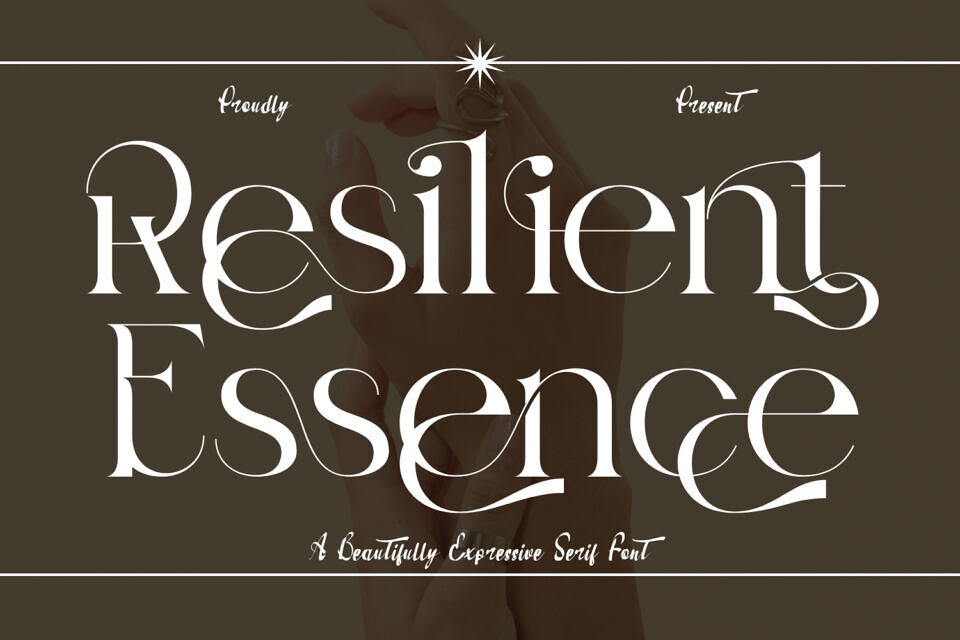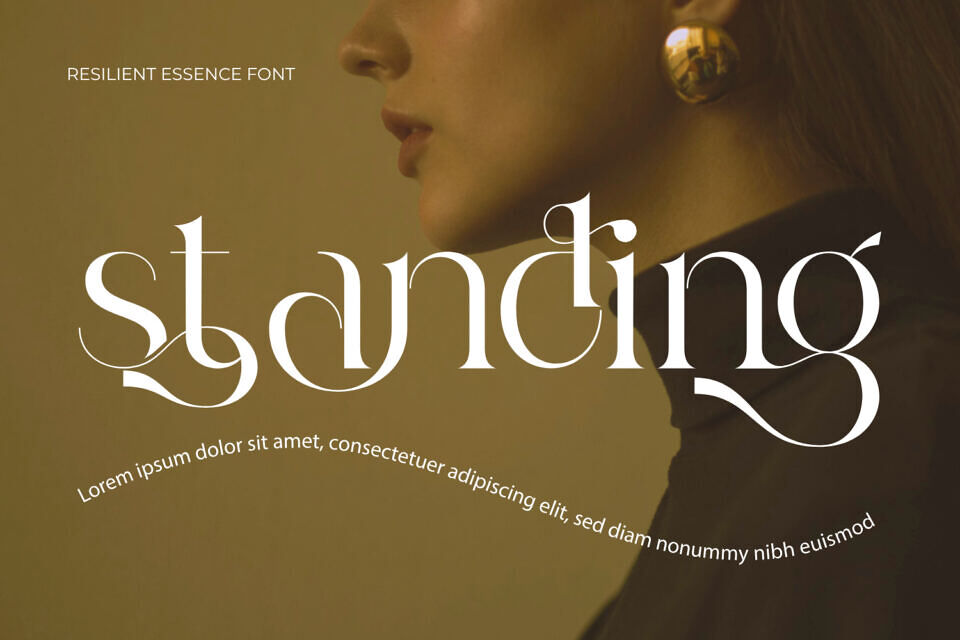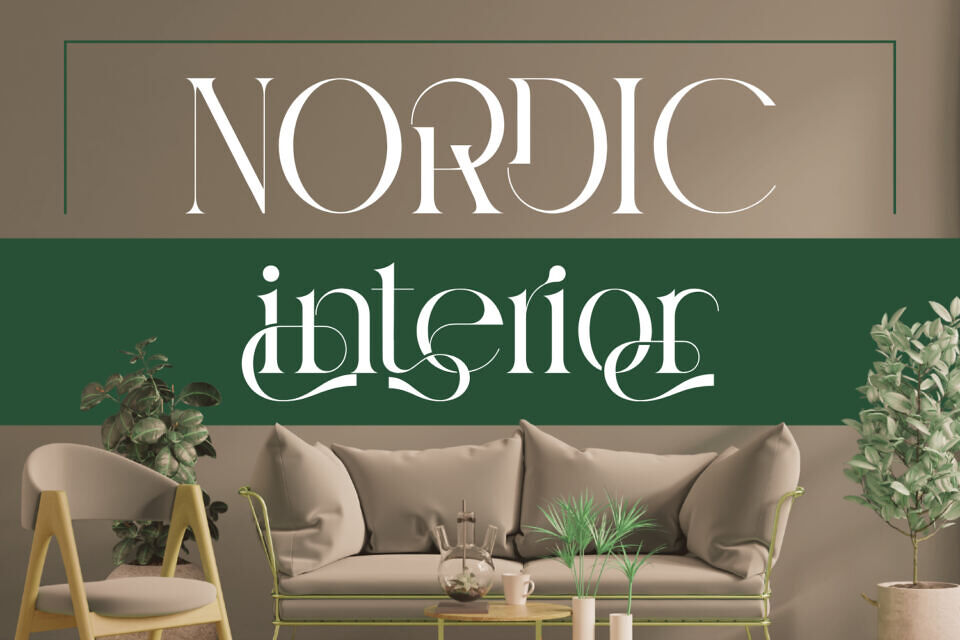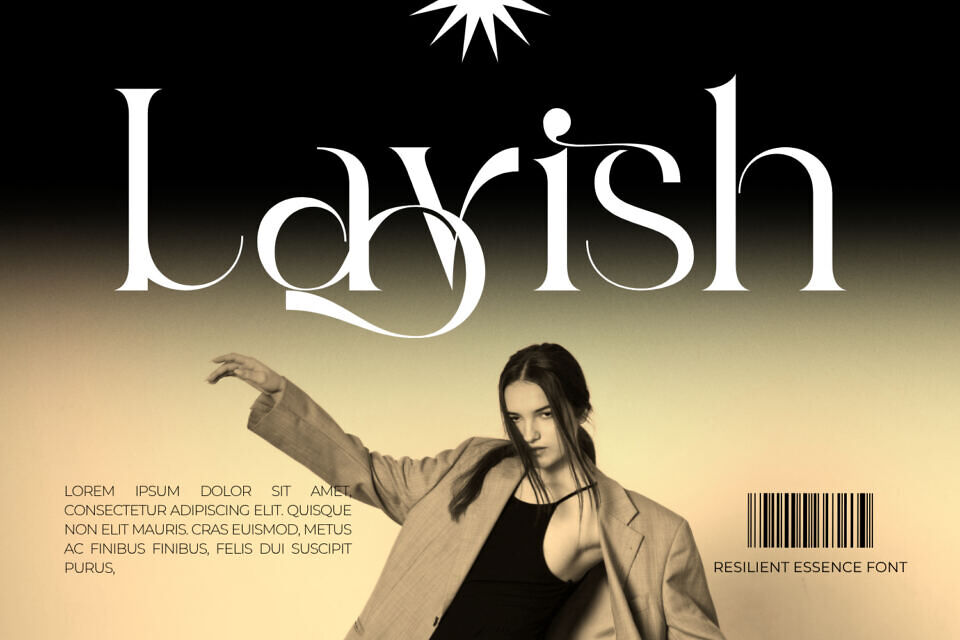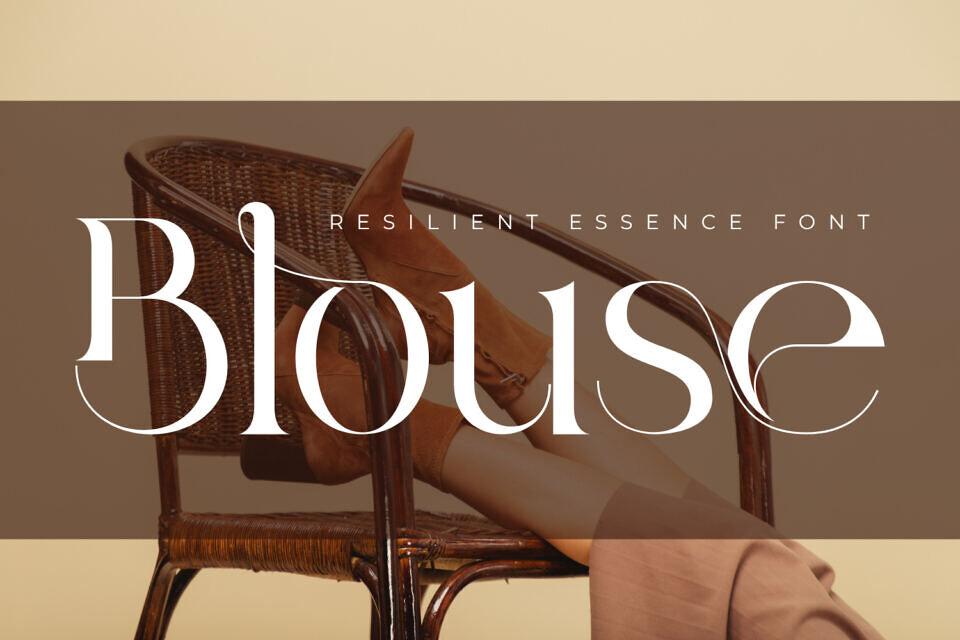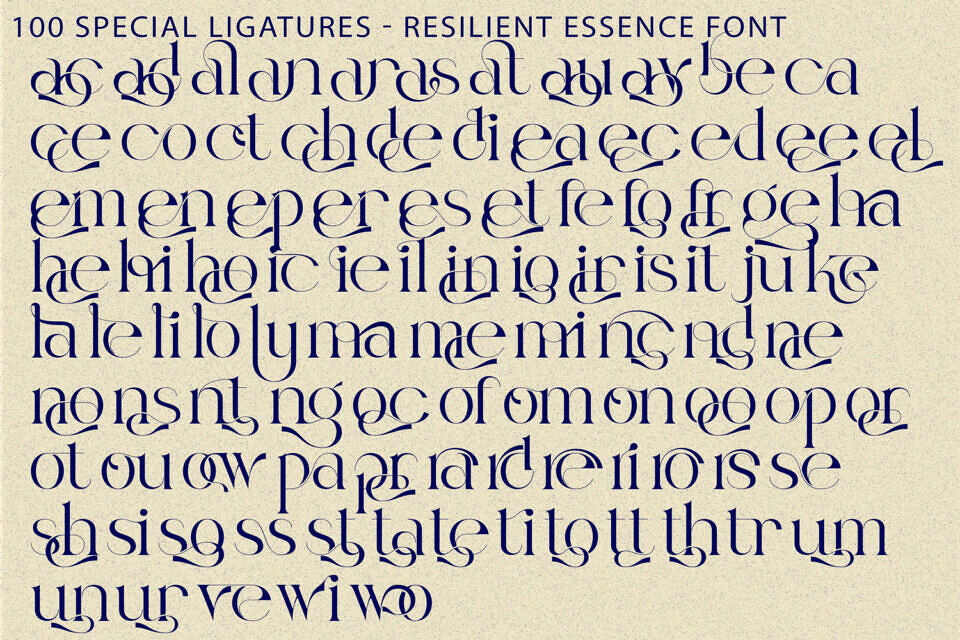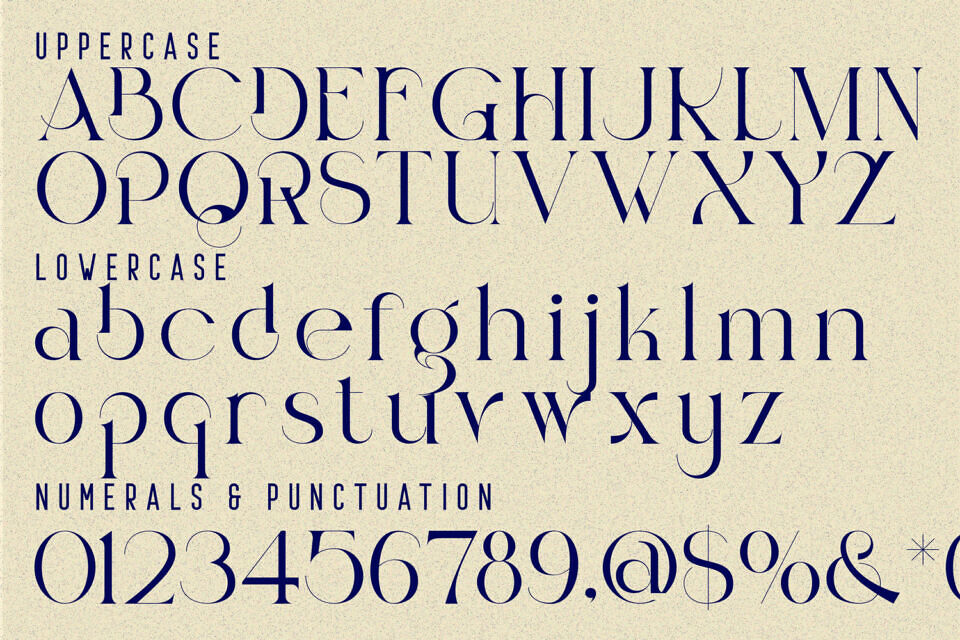
Resilient Essence is an elegant calligraphic serif display font designed with graceful curves, refined contrast, and flowing decorative details. Its high-contrast letterforms and stylish ligatures create a luxurious rhythm that feels both timeless and modern.
Perfect for beauty branding, fashion editorials, wedding invitations, perfume packaging, boutique logos, and premium visual identities, Resilient Essence brings sophistication and artistic charm to every design.